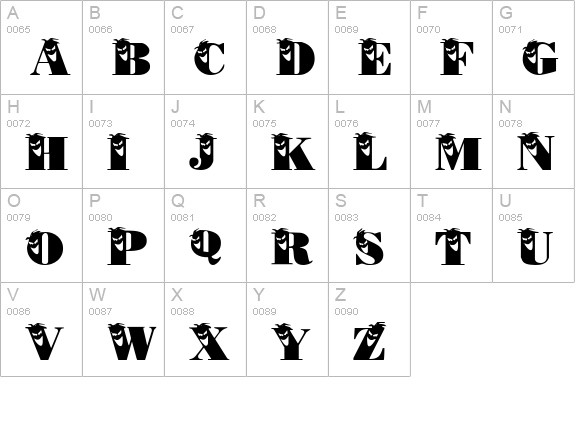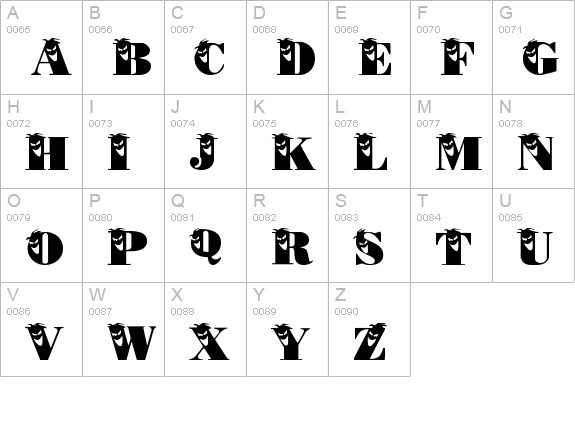
PhilliBoo font is a remarkable display typeface that exudes charm and elegance. Its unique and playful letterforms captivate the eye, making it perfect for a wide range of creative projects. This font is not only visually stunning but also incredibly versatile, making it suitable for both digital and print designs. One of the standout features of PhilliBoo font is its free availability. It can be freely downloaded at FontsMarket.com, allowing designers, artists, and enthusiasts to have access to this exceptional font without any cost. This availability adds to its appeal, making it an excellent choice for those looking for a high-quality font that doesn't break the bank. With its clean lines and balanced proportions, PhilliBoo font is easy to read, making it ideal for headlines, titles, logos, invitations, and more. Its versatility extends to various design styles, whether it be modern, vintage, or even whimsical. The font's sophisticated yet playful aesthetic allows it to bring a touch of elegance and personality to any project. Whether you're designing a website, creating branding materials, or crafting a unique piece of art, PhilliBoo font is a superb choice. Its wide range of glyphs and ligatures provide ample creative opportunities, allowing you to customize and enhance your designs. The font's attention to detail and meticulous craftsmanship ensure that your work will stand out from the crowd. In conclusion, PhilliBoo font is a visually stunning and versatile typeface that is freely available for download at FontsMarket.com. Its unique and playful letterforms, combined with its clean lines and balanced proportions, make it a fantastic choice for any creative project. Whether you're a professional designer or a hobbyist, this font will elevate your designs and leave a lasting impression.